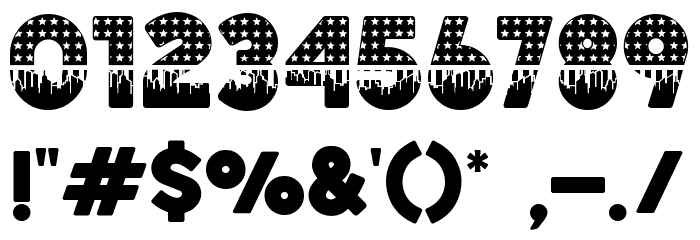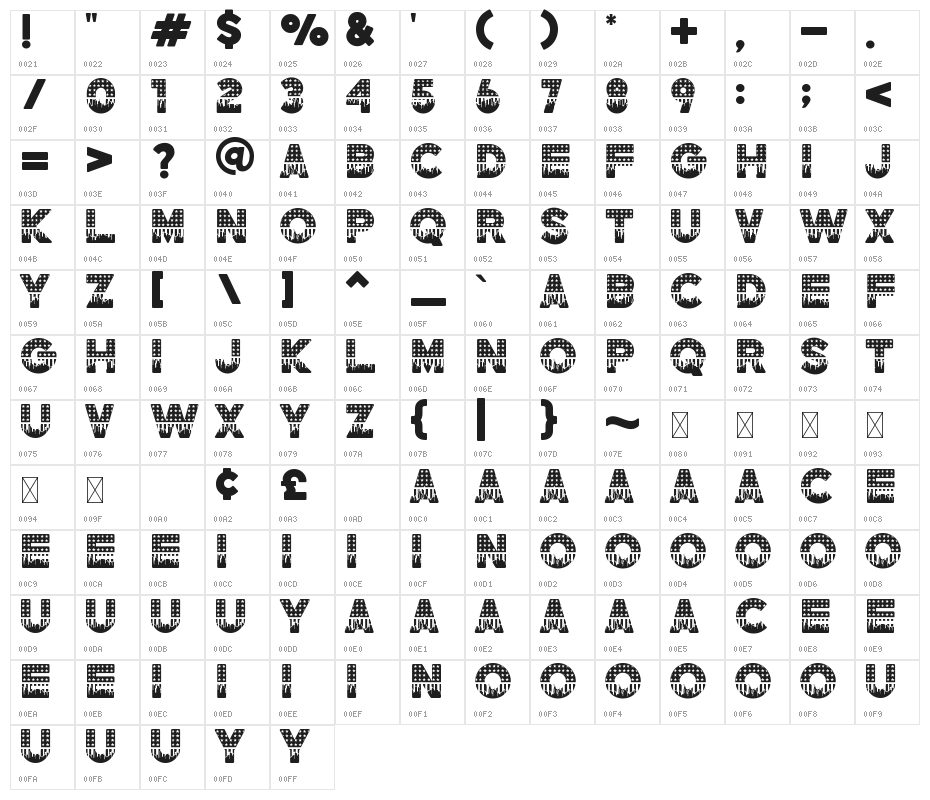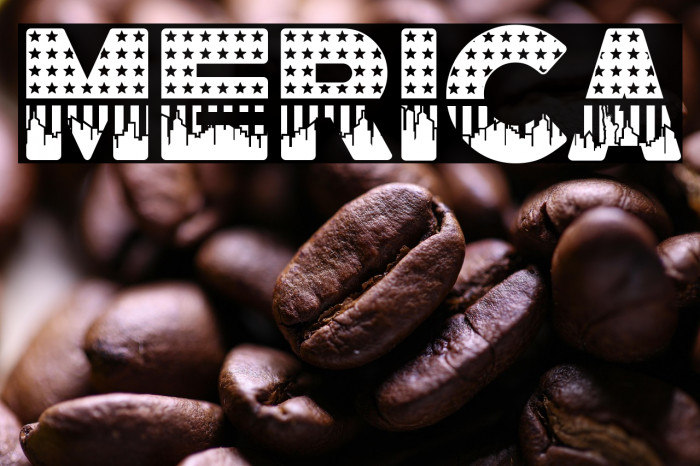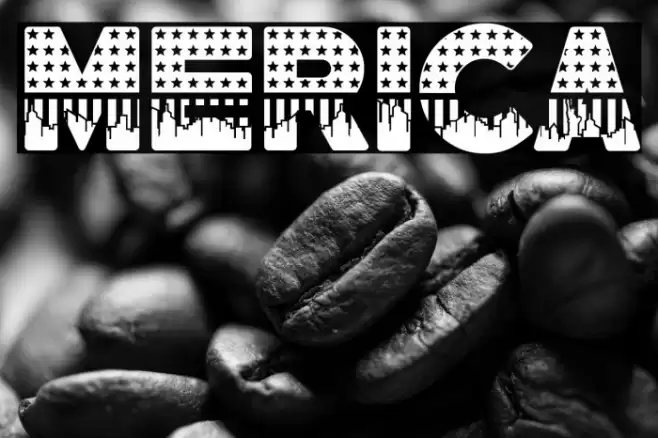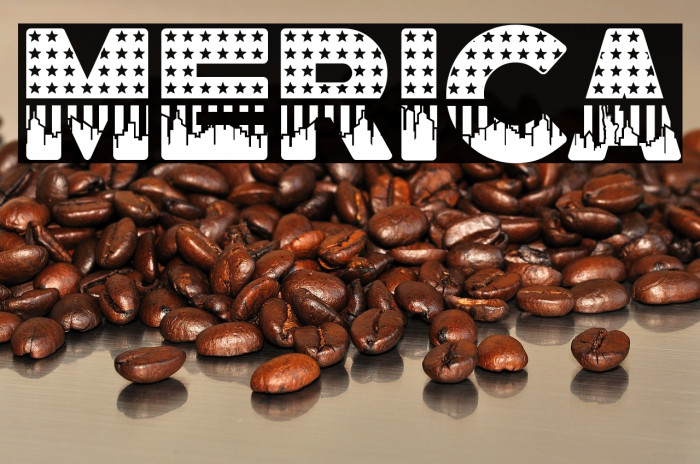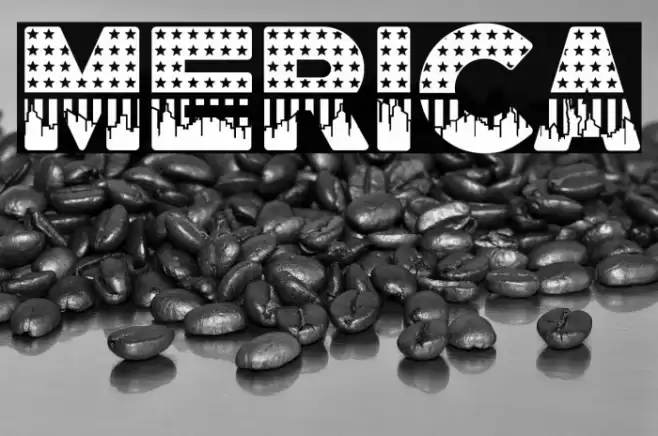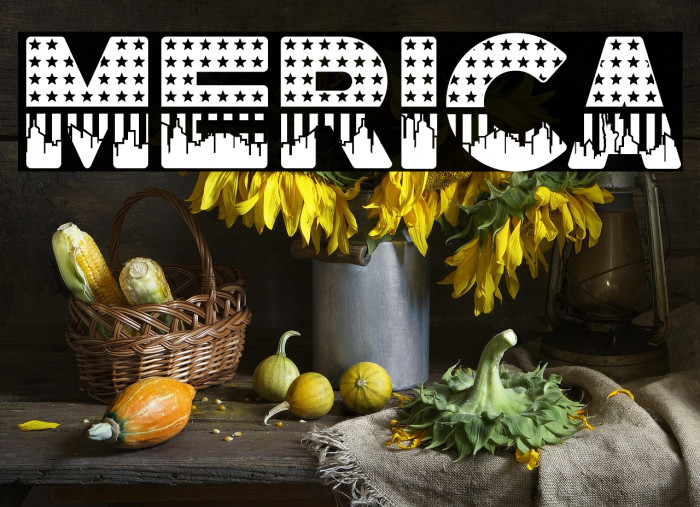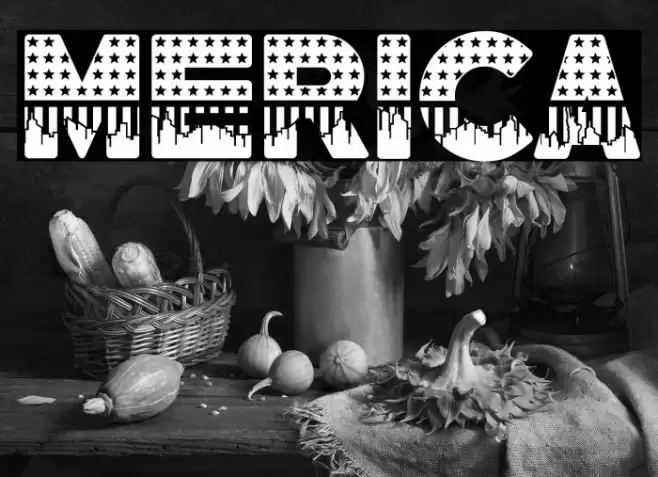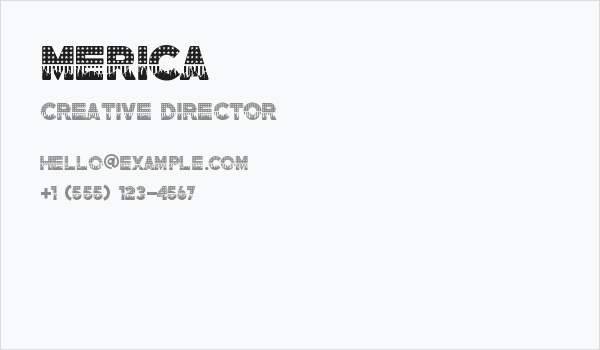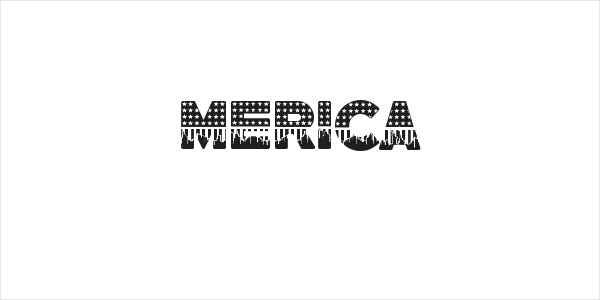
Merica Font
Merica Description
This font features a bold and patriotic design, incorporating elements of the American flag within each character. The upper half of each letter and number is adorned with stars, while the lower half displays stripes, creating a visually striking contrast. The font is highly decorative, making it ideal for projects that require a strong, nationalistic theme. Its bold weight and decorative style make it stand out, while the consistent use of stars and stripes throughout the character set ensures a cohesive look. The font is perfect for themed events, posters, and any design that aims to evoke a sense of patriotism.
| Overall Style | Decorative |
| Use Case | Headlines, Logos |
| Proposed Projects | Ideal for patriotic posters, event banners, themed merchandise, and celebratory graphics. |